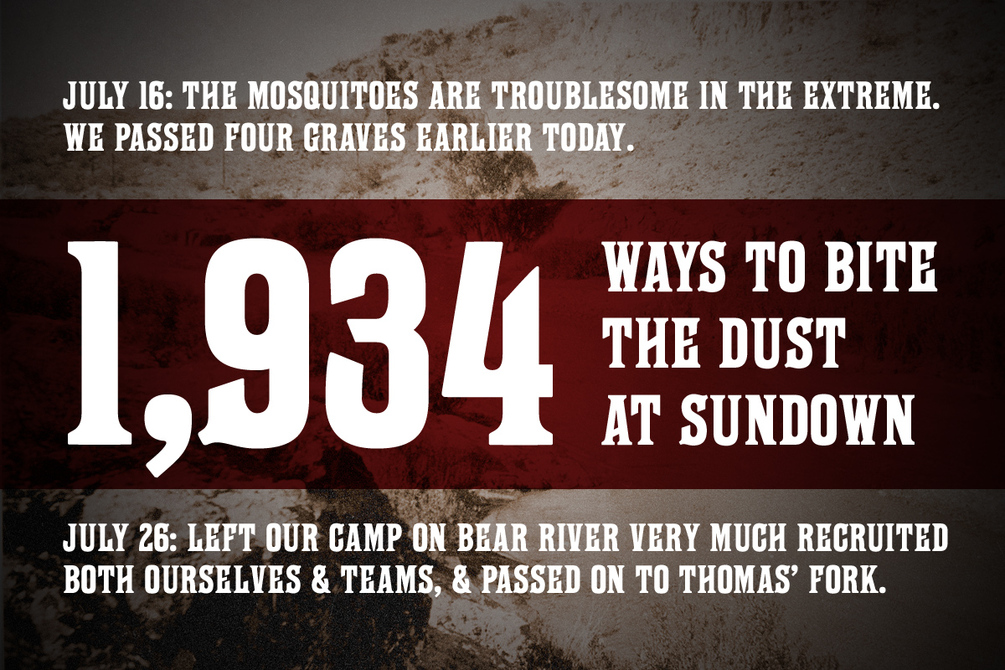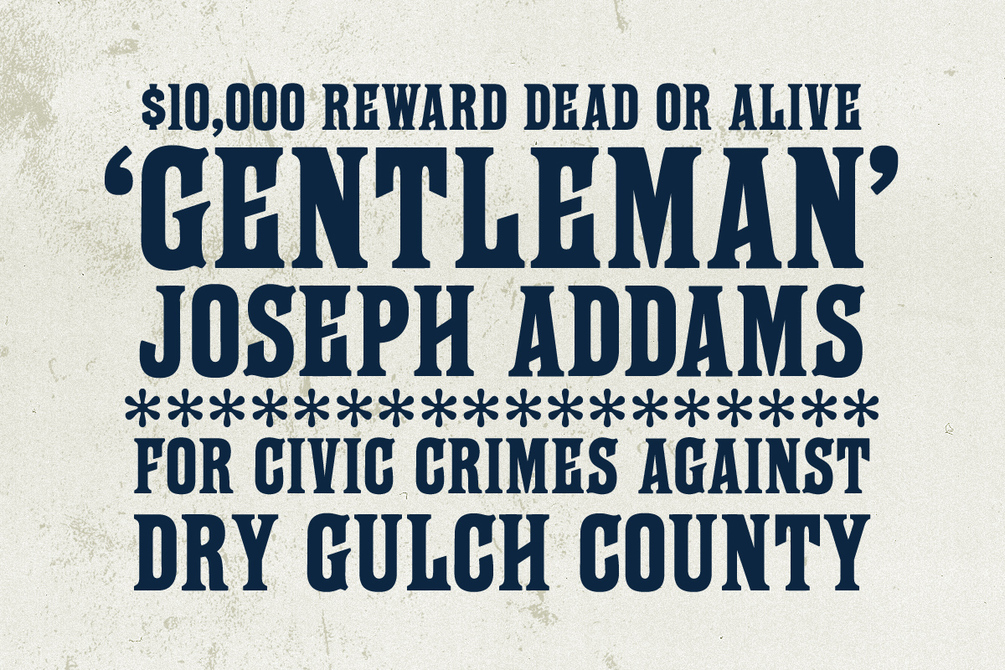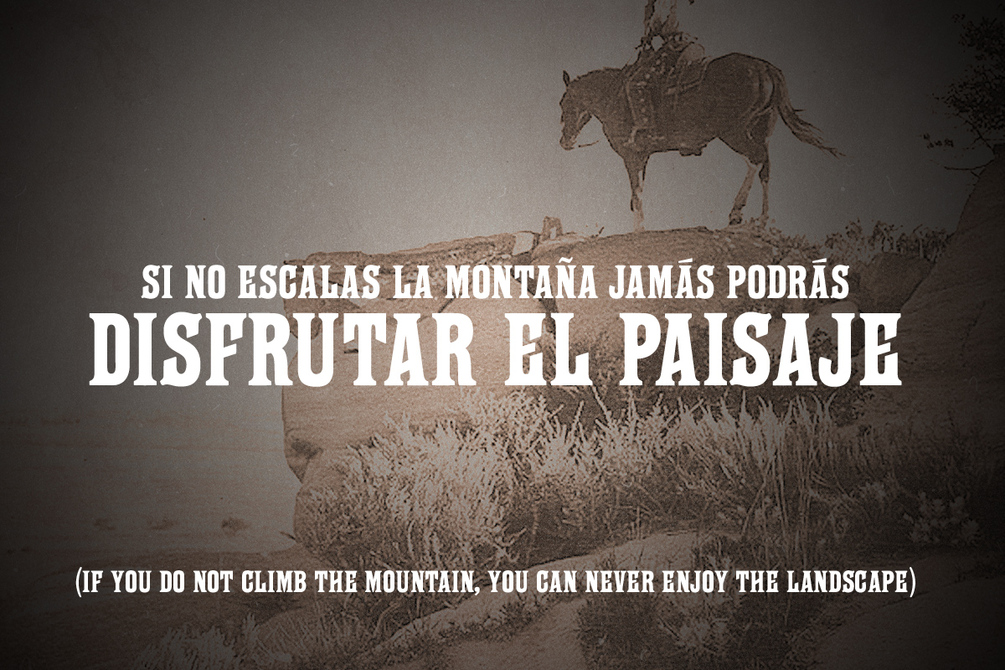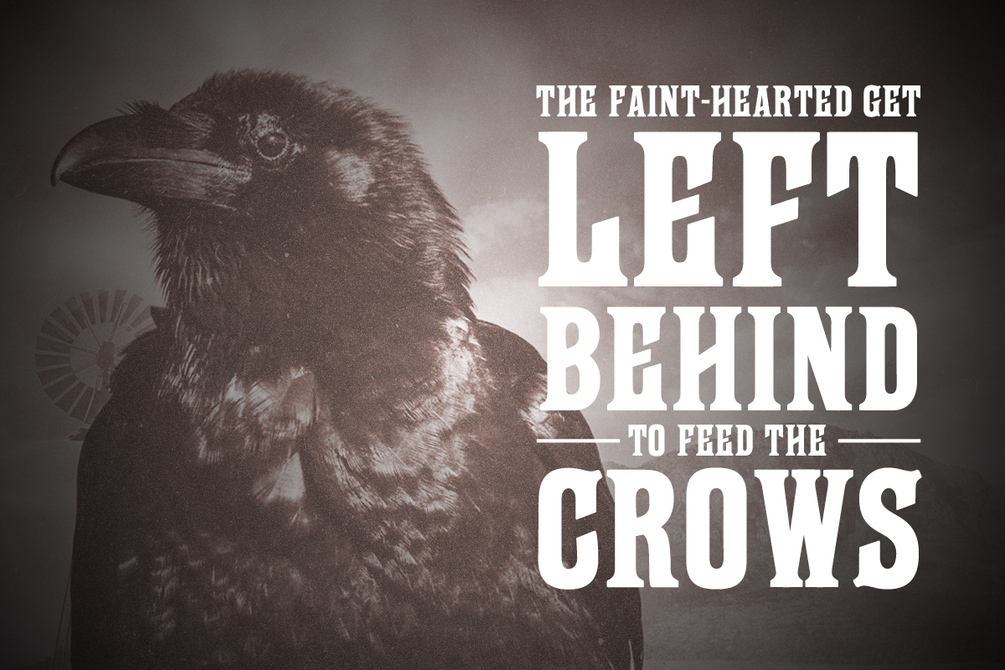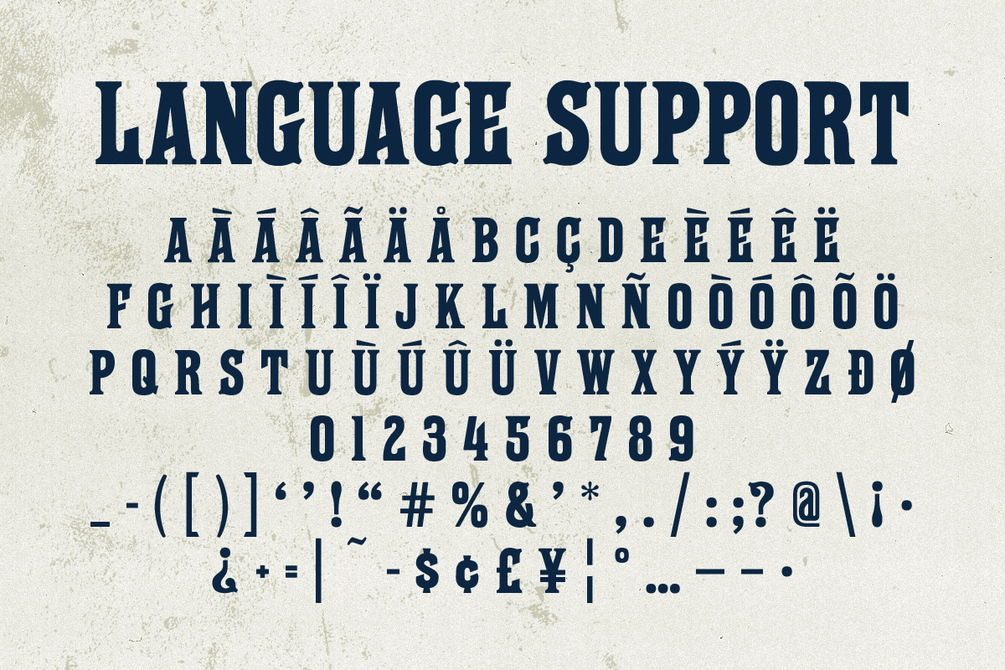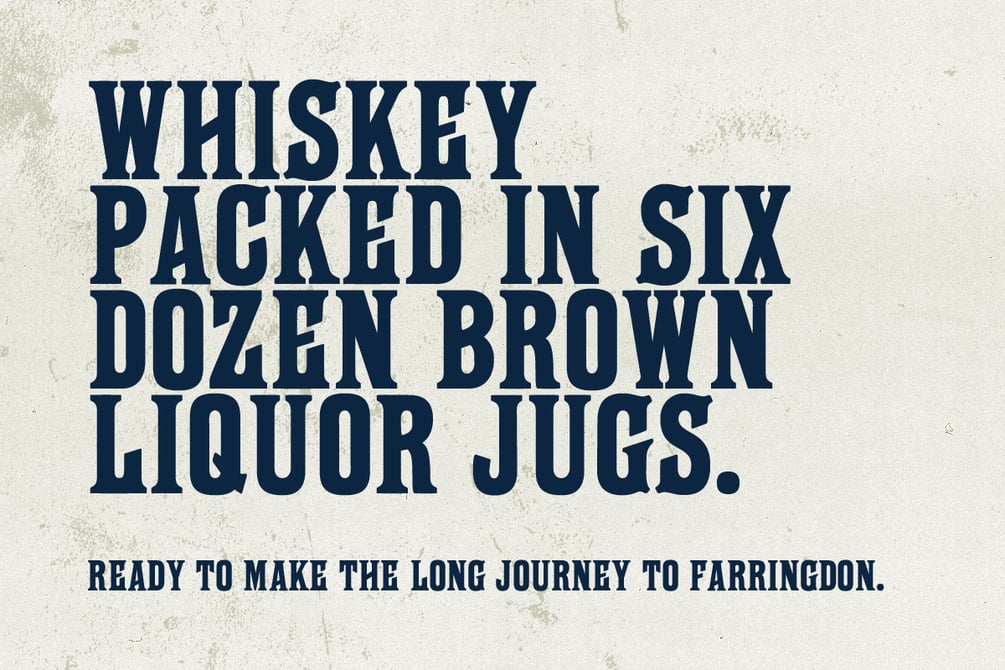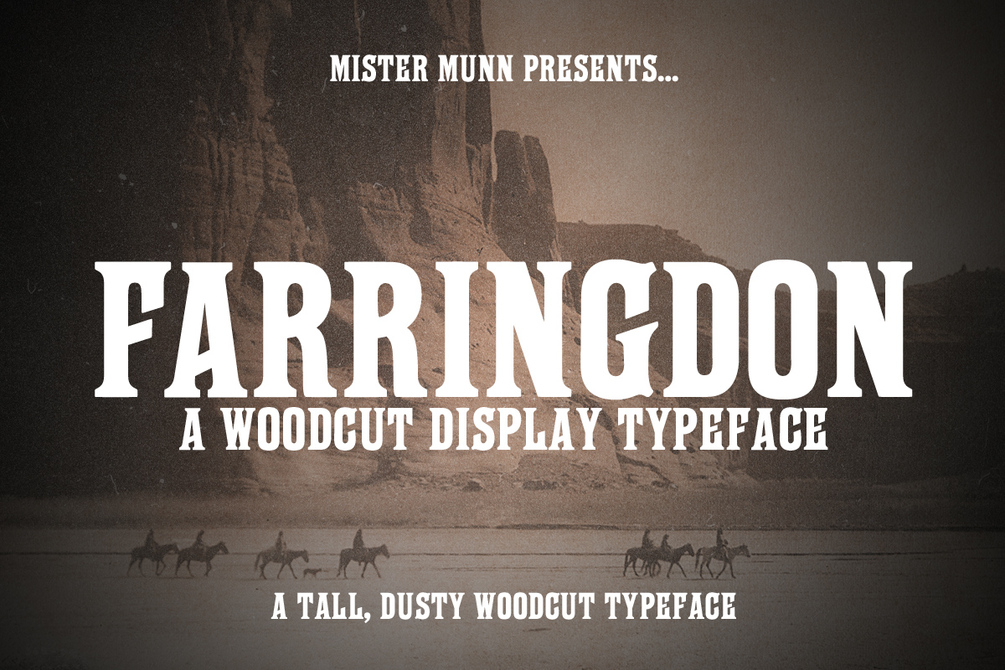
Farringdon Typeface
Farringdon is a woodcut typeface revival with a tall, condensed silhouette. When it's time to hit the ol' dusty trail, this typeface is ready to put in work.
Originally produced by the Fredrick Ullmer Company in London and named after the Farringdon District, this typeface rose to fame again in 2020. Farringdon made an appearance as the show title font for the Netflix documentary series, TIGER KING.